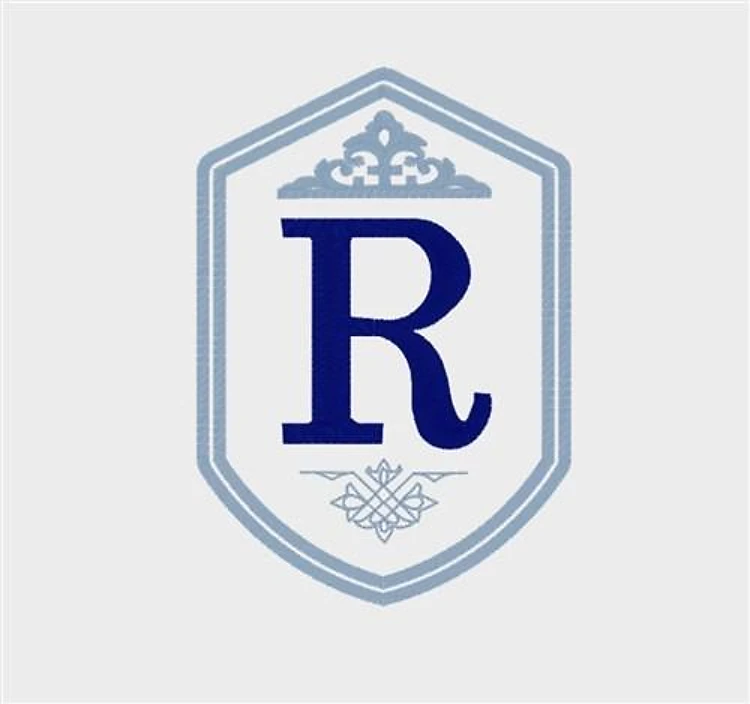
Artsy Knots is happy to present Pillow monogram Embroidery Font - Bold Serif Monogram Lettering - PES, DST & 6 formats machine embroidery font which has This bold serif monogram embroidery font showcases a striking 'R' within a shield design, perfect for personal or family projects on pillows. Available in PES, DST, and six other formats. included. If you would like to view more embroidery fonts and alphabets please search our embroidery fonts page.